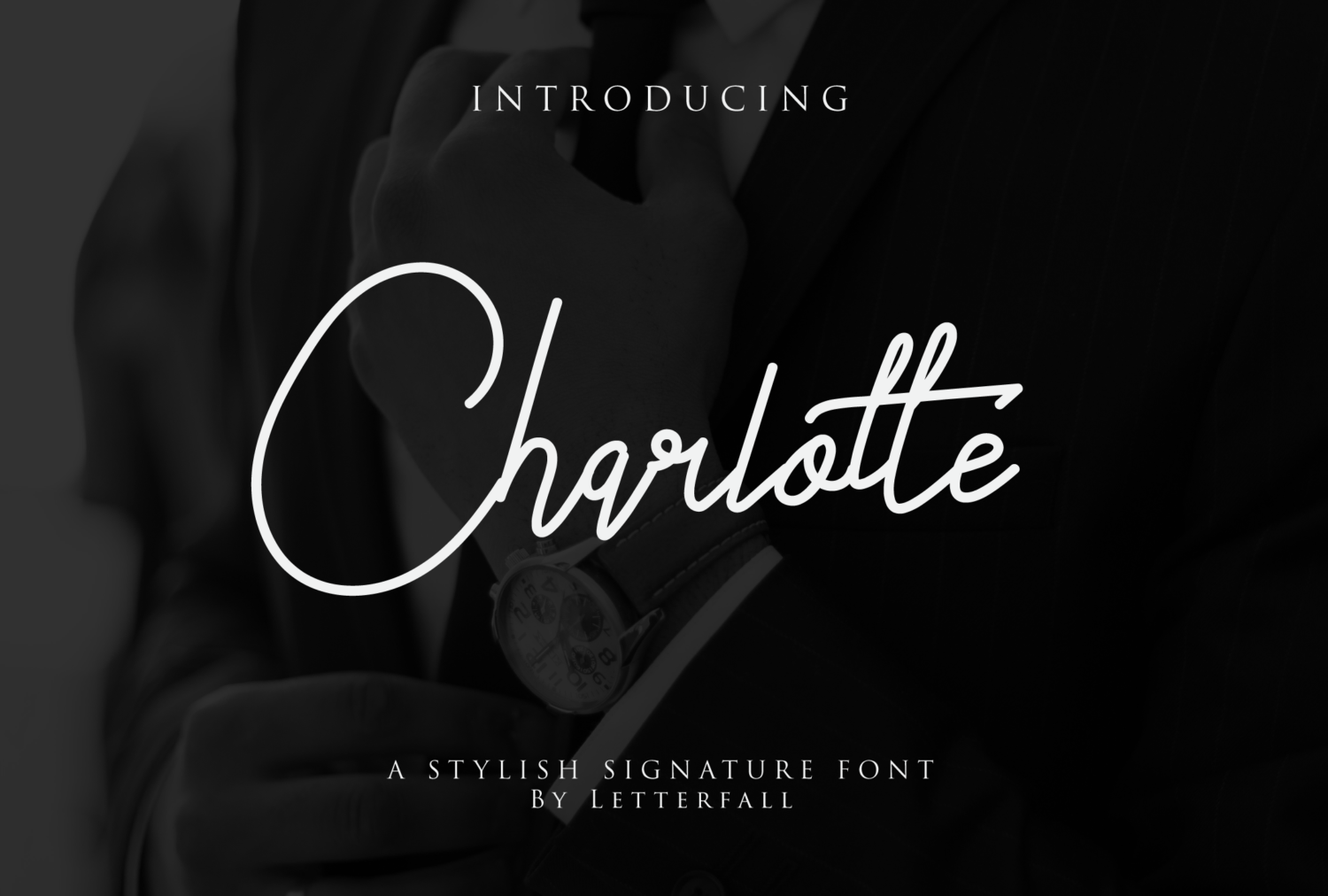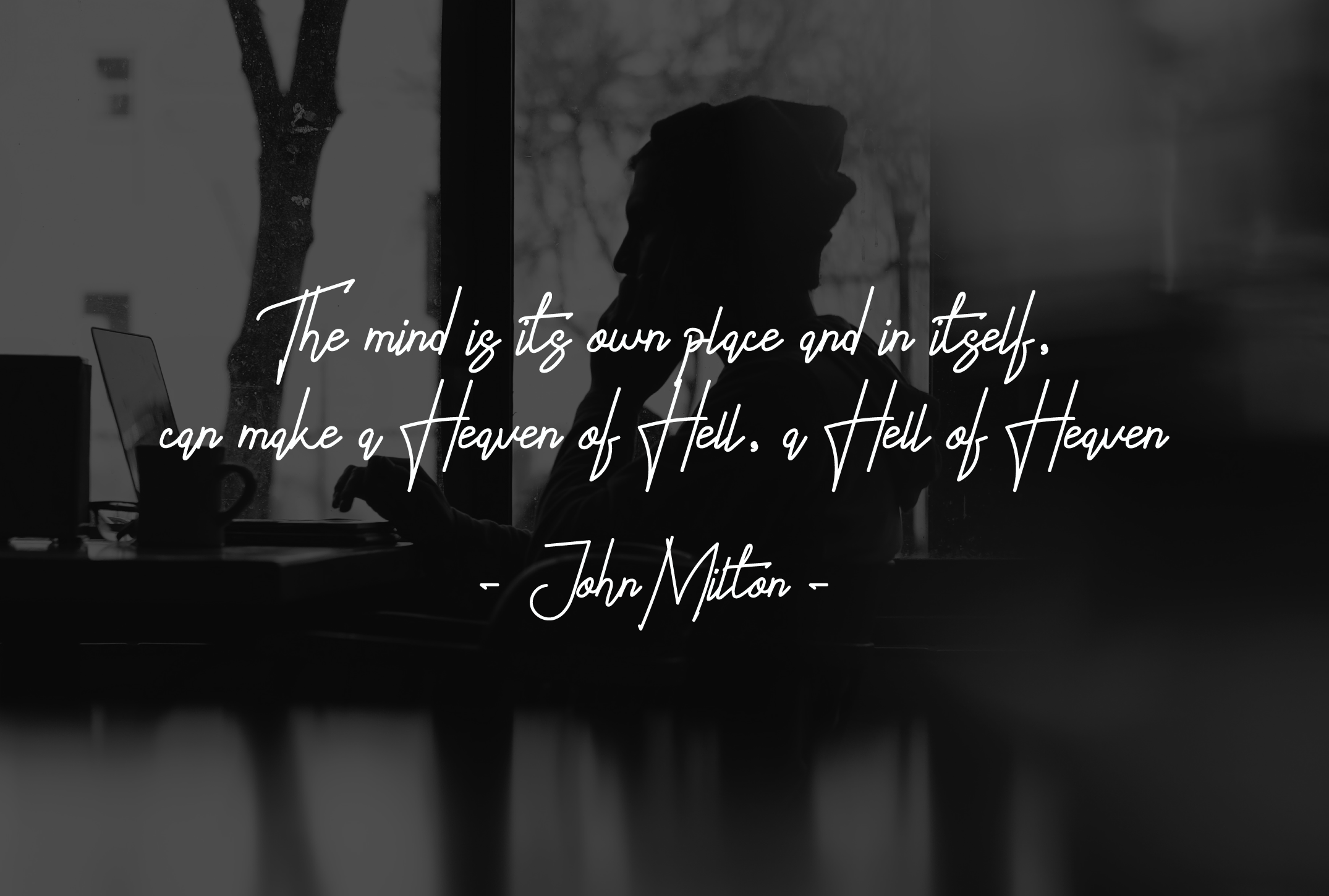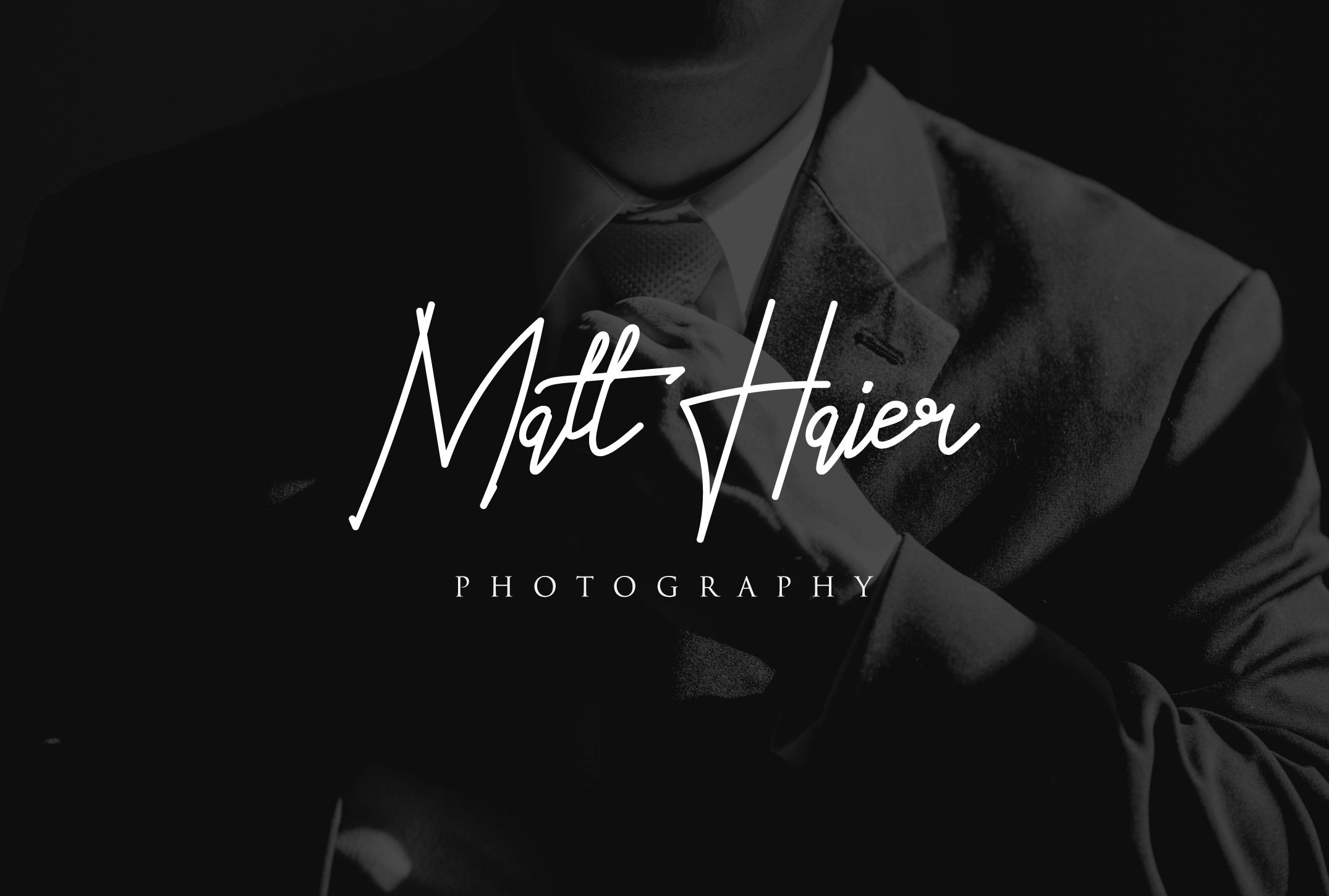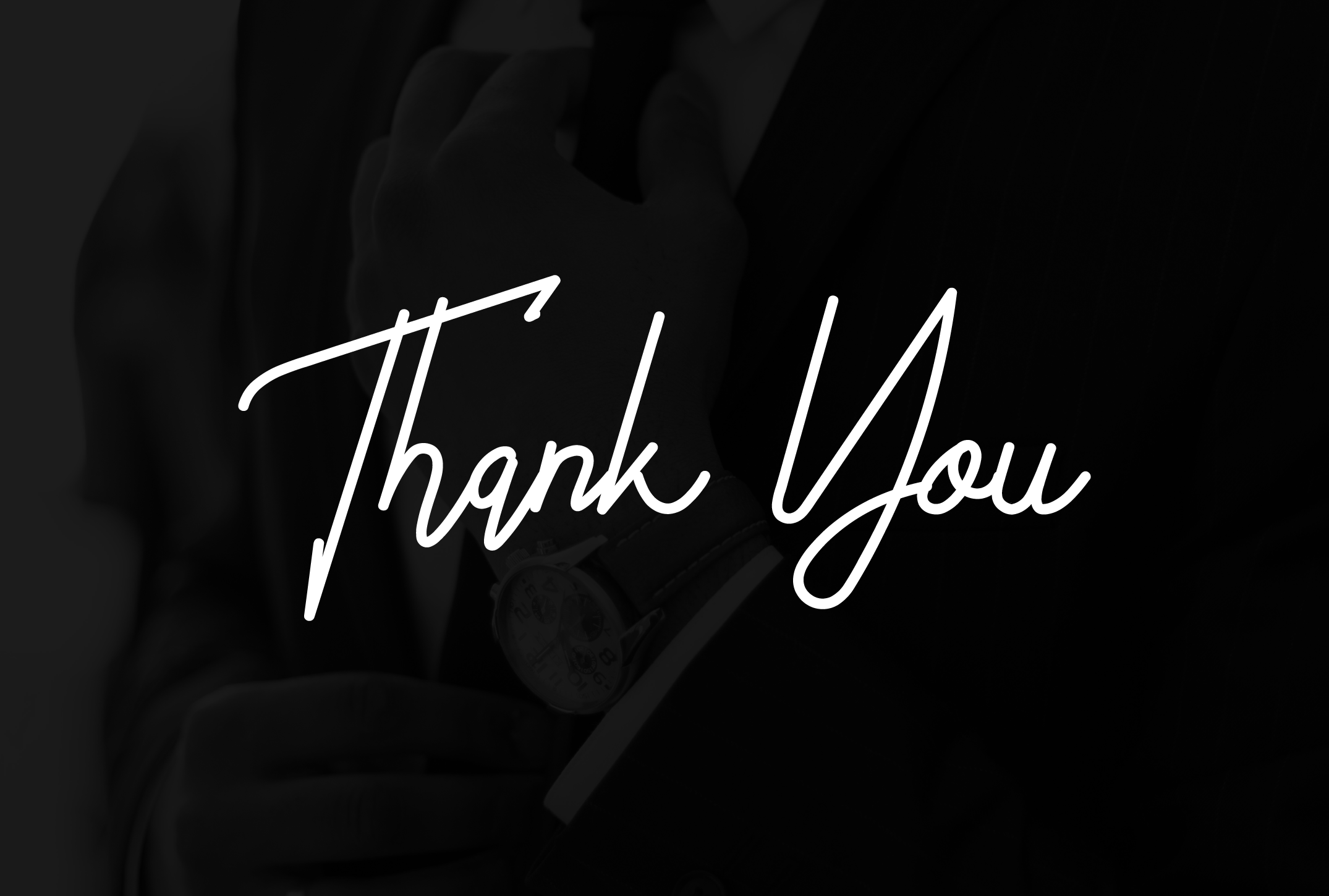
Charlotte Script Free Font
Charlotte Script Free Font is a modern script that perfect for signature logo, photography logo, branding logo, or anything that you’ll need,. It is so beautiful and classy, simple but strong. This is free for commercial use so feel free to use it to prosper. This free typeface was designed by a talented Letterfall Studios. If you like it don’t forget to check out the full version.